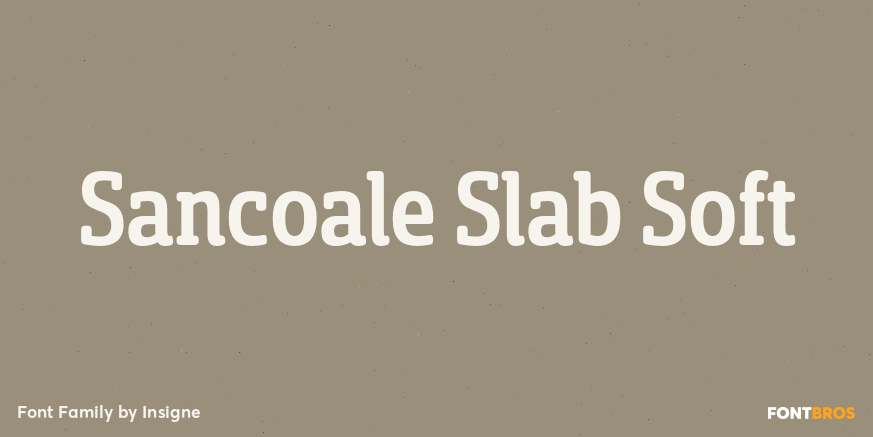
Sancoale Slab Soft
About Sancoale Slab Soft
Ready for the designs of today, the Sancoale superfamily takes a softer turn with a rounded slab serif. Crafted from Sancoale\’s simple geometry, new softened slab serifs provide a lively typeface that conveniently enhances its cousins: Sancoale Softened–a…